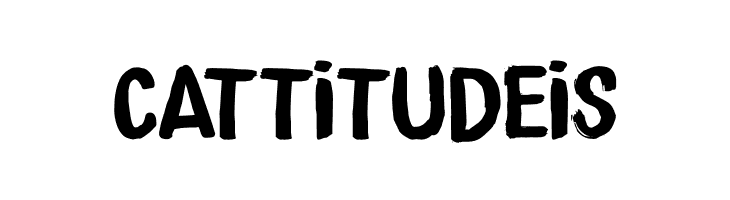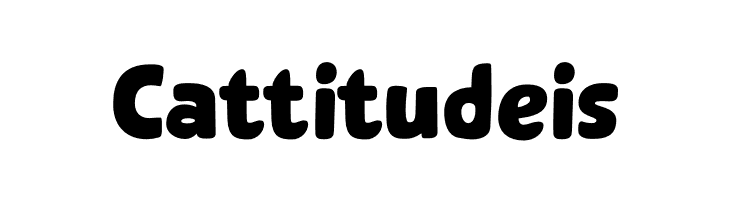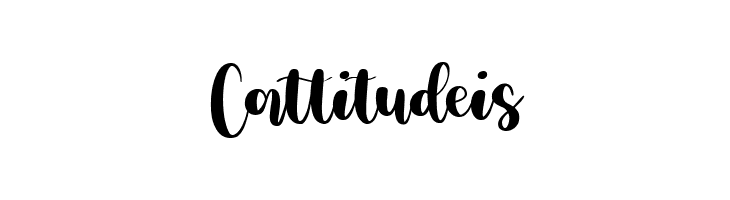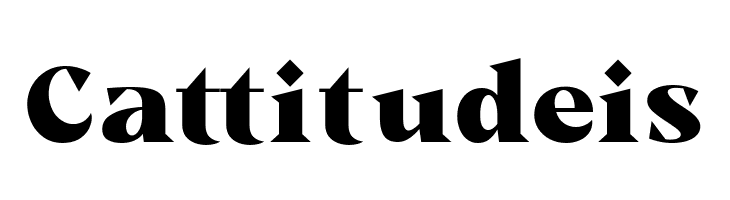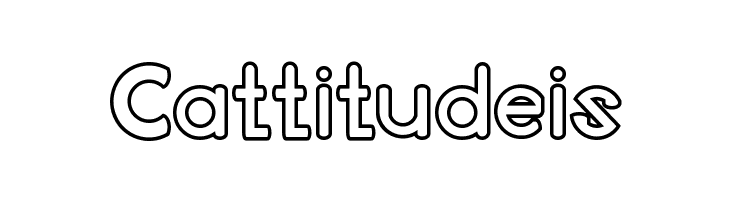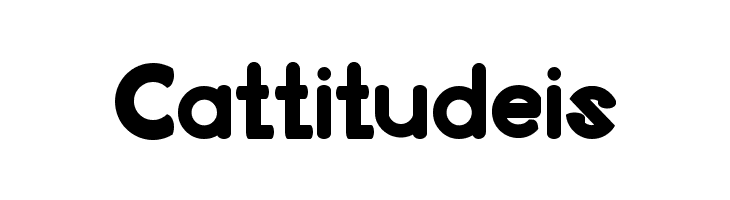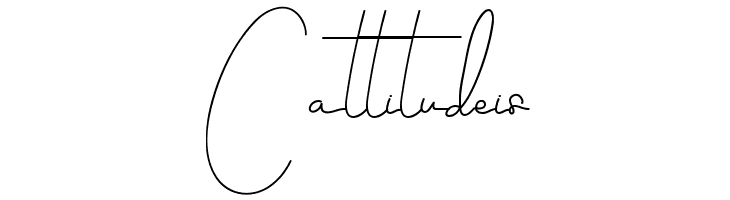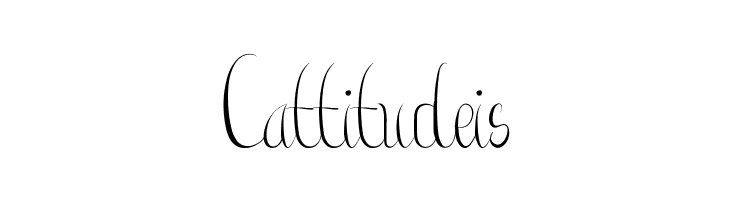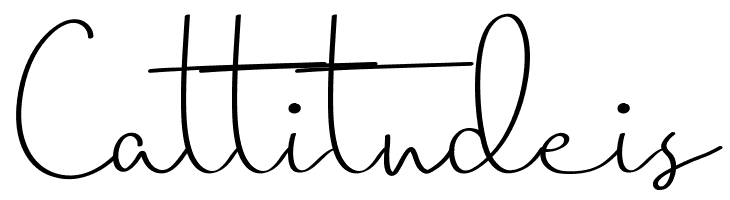
An elegant script font with flowing, interconnected letters and high contrast.
A fluid, elegant handwritten font with a dynamic and personal touch.
An elegant script font with flowing, cursive letterforms and delicate flourishes.
A bold, geometric font with a playful yet assertive style.
A playful, hand-drawn font with elongated strokes and a whimsical touch.
A dynamic, expressive handwritten font with fluid, elongated strokes.
A delicate, flowing script font with elegant, continuous lines.
A playful, hand-drawn font with a casual and whimsical style.
A playful, school-themed handwritten font with doodle-like illustrations.
A playful, handwritten font with a casual and lively style.
A playful, handwritten script font with a casual and whimsical style.
A whimsical and fluid script font with a hand-drawn appearance.
A pixelated, dot matrix font with a digital and retro aesthetic.
A pixelated, italic font with a digital, modern style.
A digital, pixelated font with outlined squares for a modern tech look.
A playful, bold font with rounded, slightly irregular letterforms and a hand-drawn feel.
An elegant script font with flowing, cursive letterforms and refined style.
A bold serif font with dramatic contrast and elegant curves.
A bold, geometric font with sharp angles and modern design.
A bold, geometric outline font with a modern and eye-catching design.
A bold, expressive script font with fluid strokes and elegant slant.
A bold, flowing script font with a modern, playful style.
A playful, hand-drawn font with a whimsical and friendly style.
A bold, expressive script font with flowing, cursive characters.
A bold, modern sans-serif font with geometric lines and high readability.
A bold, geometric sans-serif font with a modern and clean design.
A clean, modern font with a minimalist design and consistent stroke thickness.
A modern, geometric sans-serif font with a clean and minimalistic design.
A thin, modern font with geometric influences and uniform strokes.
A bold, jagged font with a raw, energetic style.